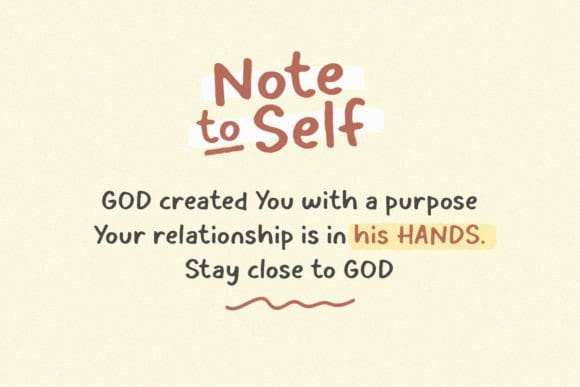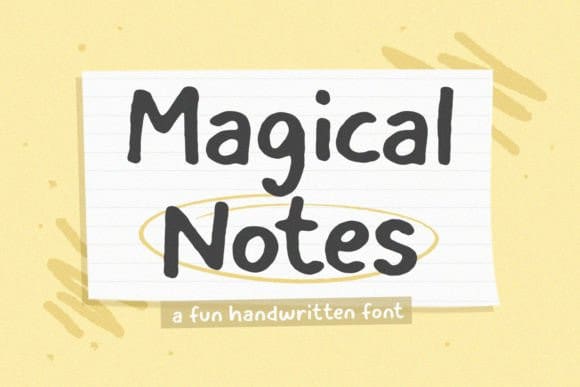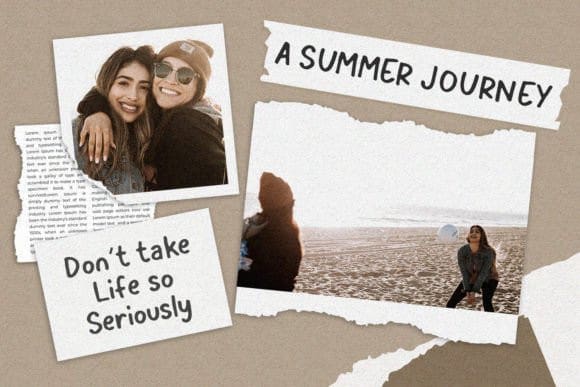
Magical Notes Font
Magical Notes Font is a Fun Handwritten font that is modern and fresh and will bring a warm and inviting feel to your business. Take advantage of the font and experience the magic for yourself.
Magical Notes is perfect for product packaging, branding project, magazines, social media, weddings, or just used to express words above the background.